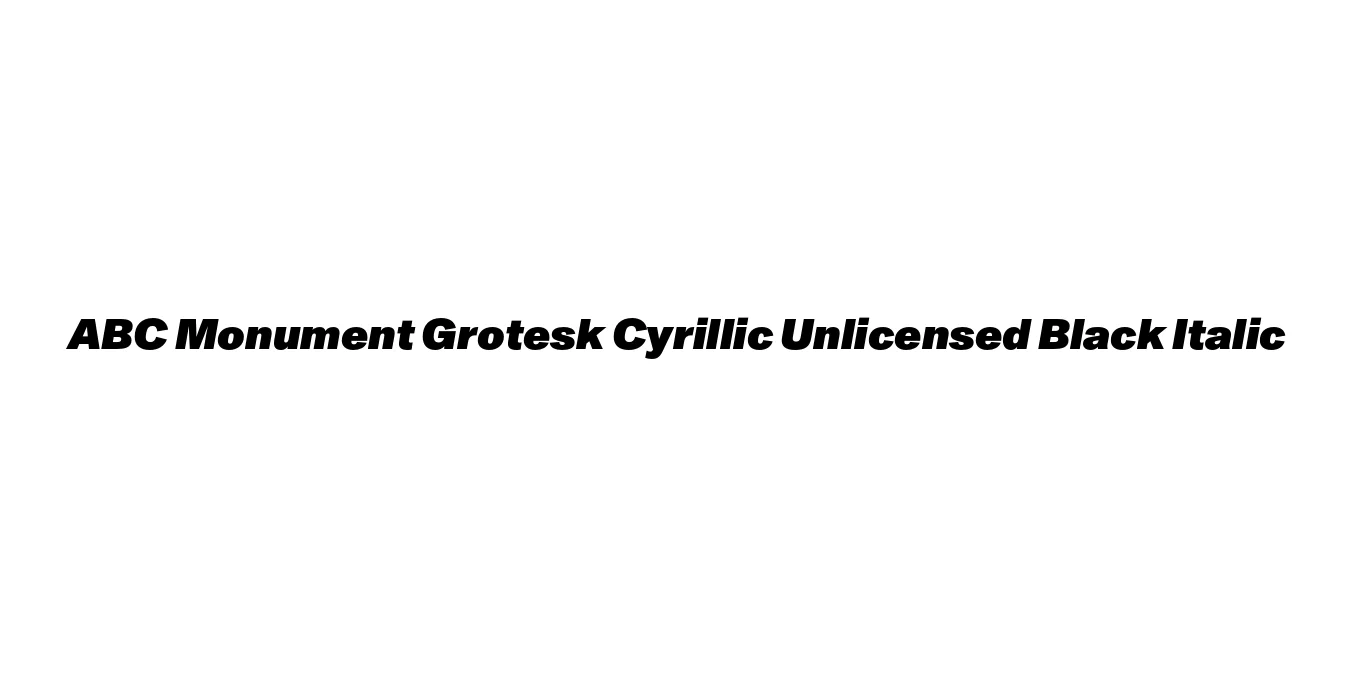
ABC Monument Grotesk Cyrillic Unlicensed Black Italic
Designed by Dinamo (Johannes Breyer & Fabian Harb)
ABC Monument Grotesk is a foundational typeface released by the Swiss design studio Dinamo. It traces its origins back to a compact, somewhat unrefined specimen found in the archives of the Gutenberg Museum in Mainz, Germany. Unlike the polished and sanitized neo-grotesques of the mid-20th century, Monument Grotesk retains a raw, industrial quality that emphasizes utility and straightforwardness over elegance.
The Black Italic weight of the Cyrillic version brings a powerful, slanted dynamism to the family, making it an ideal choice for high-impact editorial design and branding. Its inclusion of Cyrillic characters ensures broad linguistic versatility, while its aggressive weight makes it a favorite among contemporary designers looking for a typeface that feels both historical and brutally modern.
ABC Monument Grotesk Cyrillic Unlicensed Black Italic Best Uses
Perfect for bold, slanted headlines and high-impact pull quotes in magazines.
Excellent for creating a strong, industrial visual identity for modern labels.
Works exceptionally well for large-scale typography that needs to command immediate attention.
Suitable for high-impact landing pages and aggressive display headers.